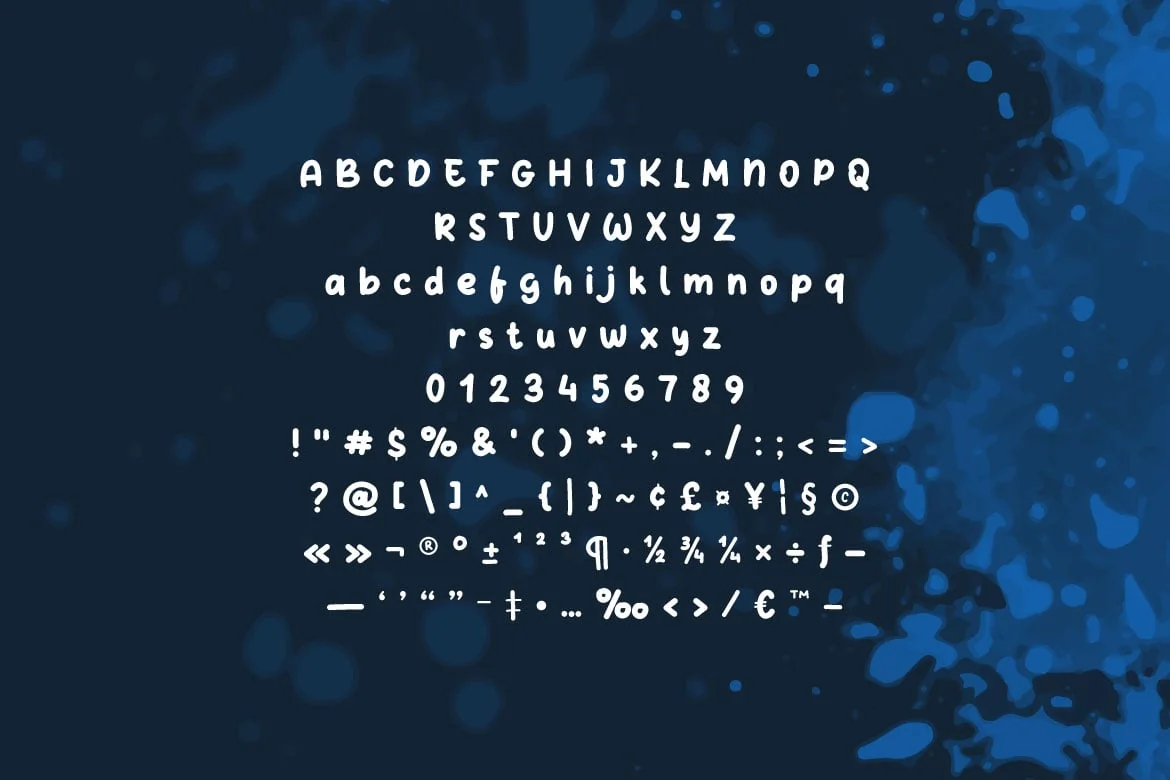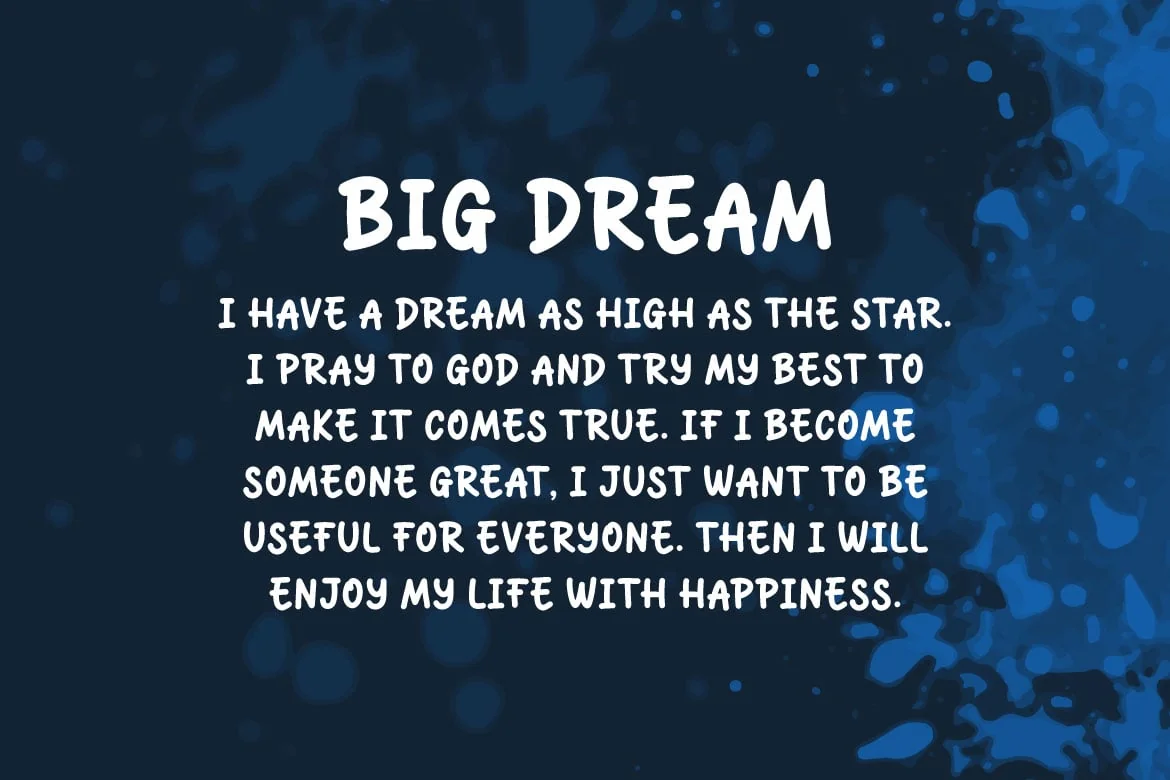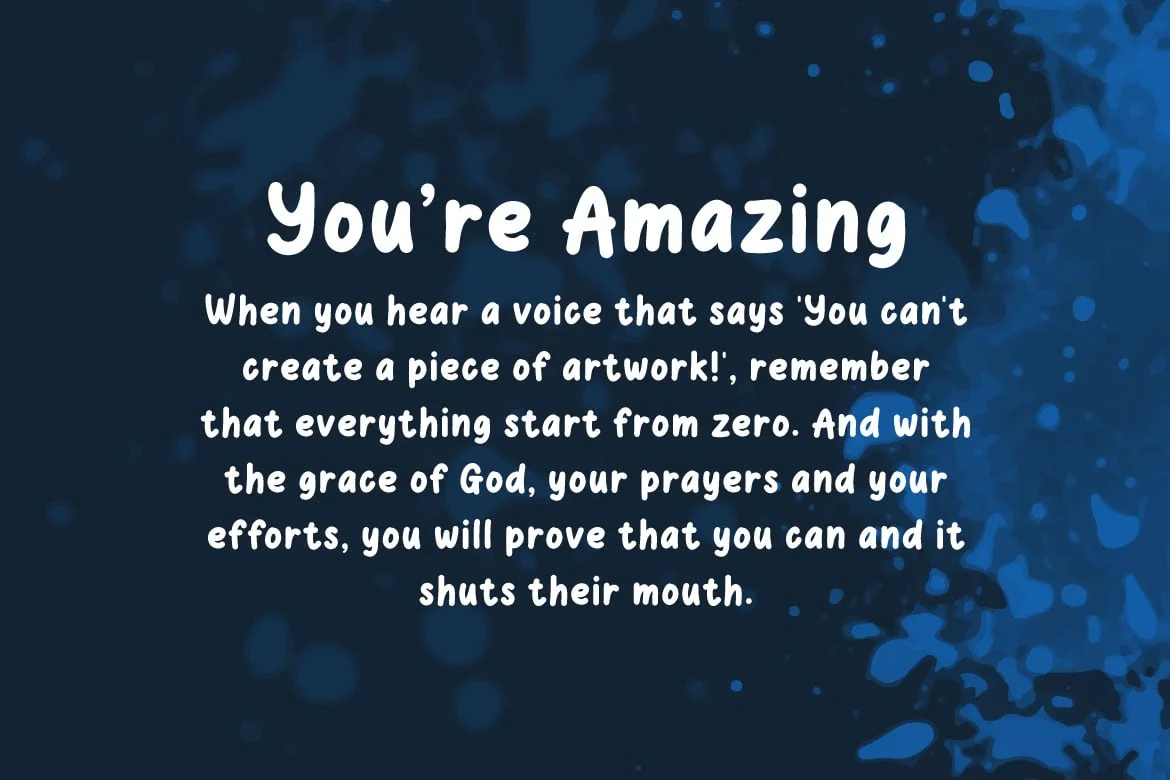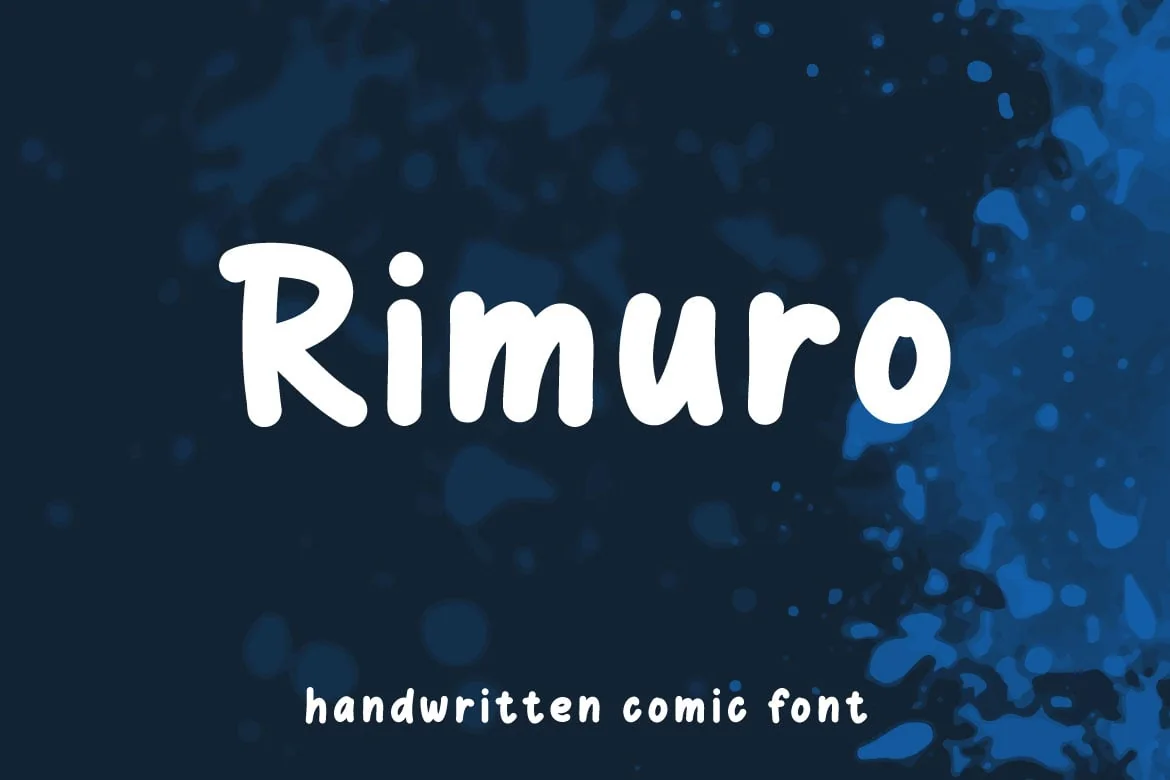
Rimuro – Bold Comic Font
Hello! Rimuro is a bold handwritten comic font.
Rimuro can be used in any works such as comic book, poster, school, flyer, book title, advertisement, social media content, logo and many more.